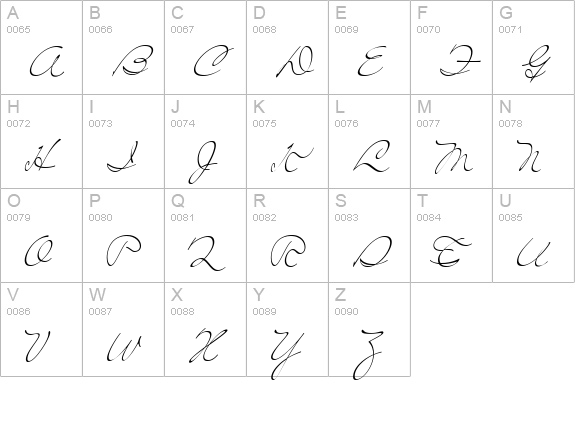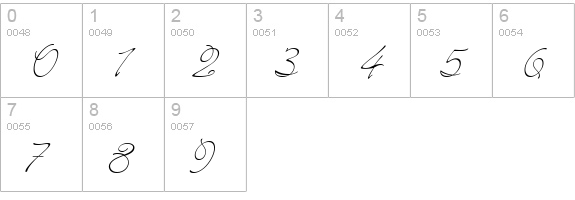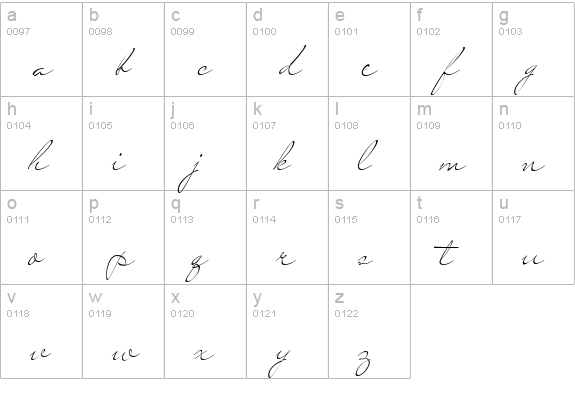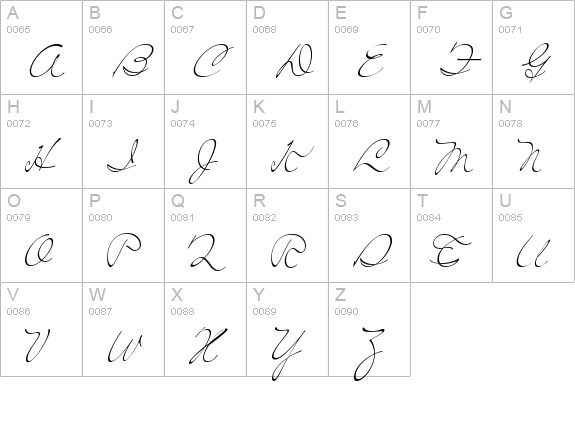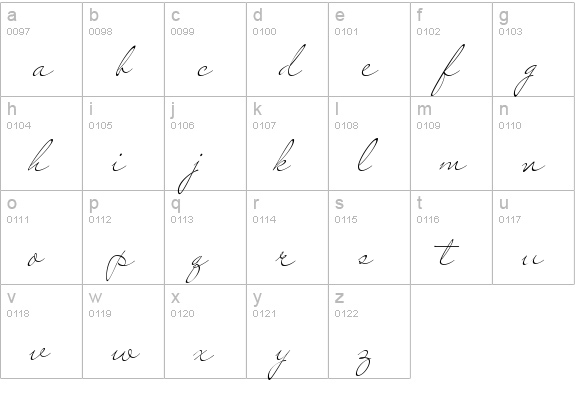
Mr Leopolde Font Details
Mr Leopolde font is a stunning and versatile typeface that exudes elegance and sophistication. With its exquisite details and unique design elements, this font is perfect for adding a touch of class to any project. Whether you're designing a wedding invitation, creating a logo, or crafting a stylish brochure, Mr Leopolde font will surely make your text stand out. What's even better is that Mr Leopolde font is completely free! Yes, you read that right. This amazing font is freely available to download at FontsMarket.com. So go ahead and elevate your designs with the timeless beauty of Mr Leopolde font. Download it now and let your creativity soar!